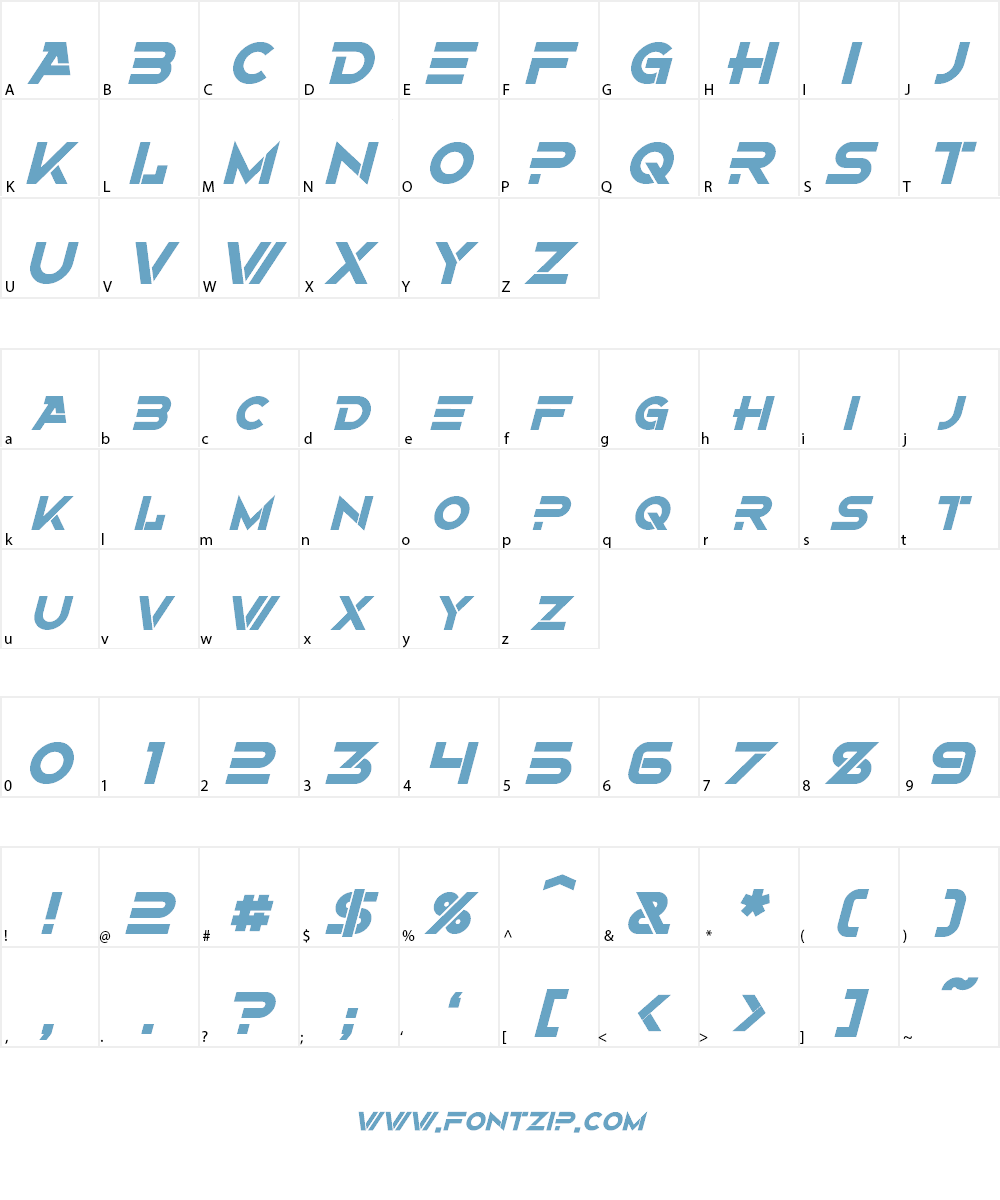
This science-fiction-themed typeface is based on title lettering used in TSR's "Alternity" role-playing game of the mid 1990s. Includes full alphabet, extended punctuation, Euro.